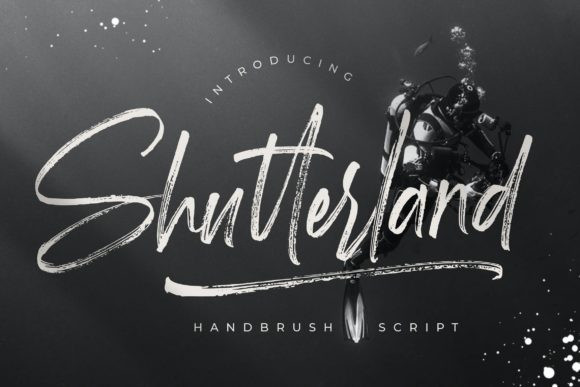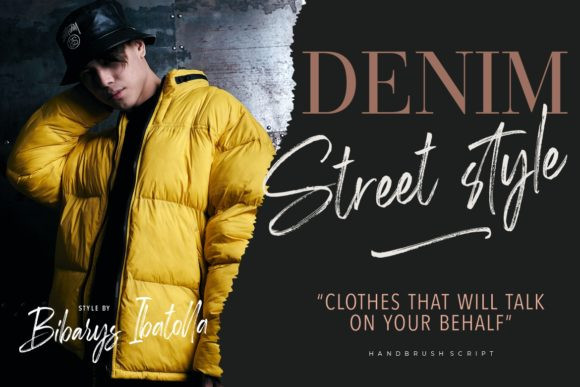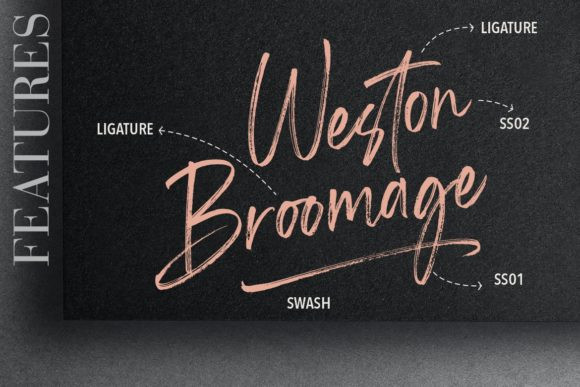
Shutterland Font
Shutterland is a natural hand brushed handwritten font, featuring a stylish scratch. It is perfect for branding projects, logo, wedding designs, social media posts, advertisements, product packaging, and so much more. This font is PUA encoded which means you can access all of the glyphs and swashes with ease!